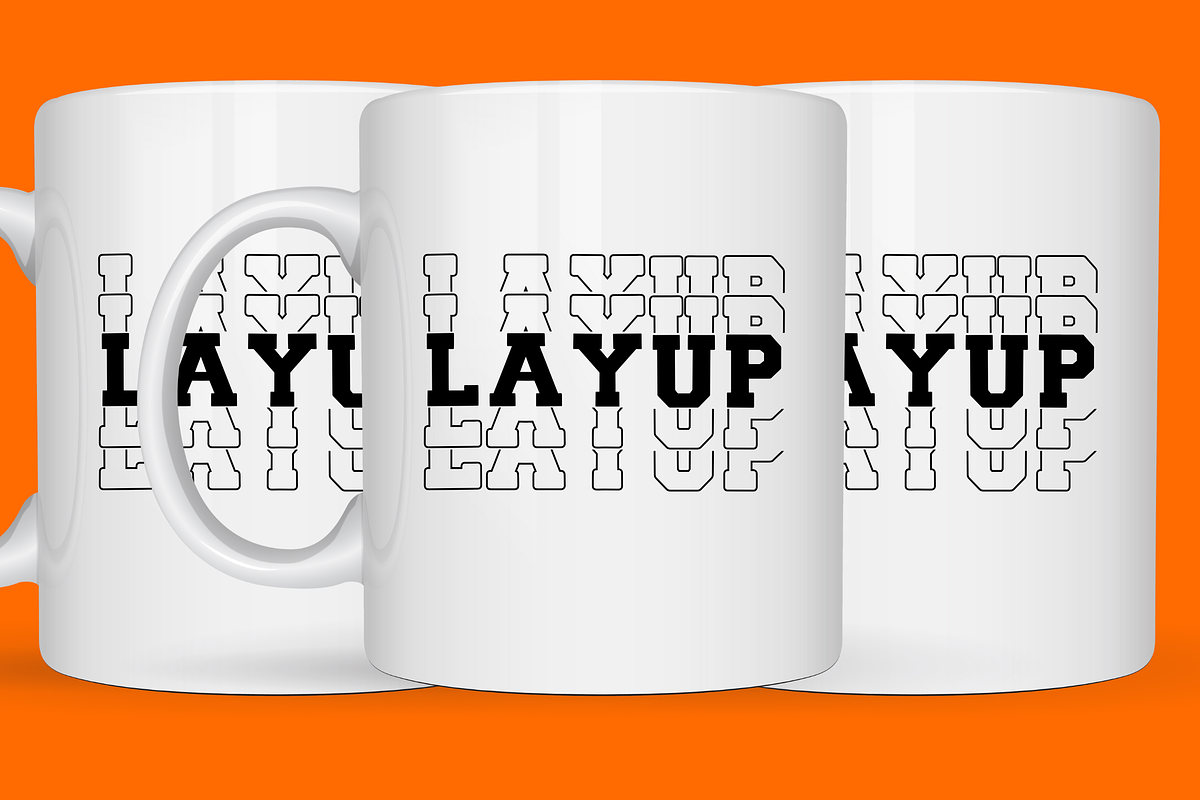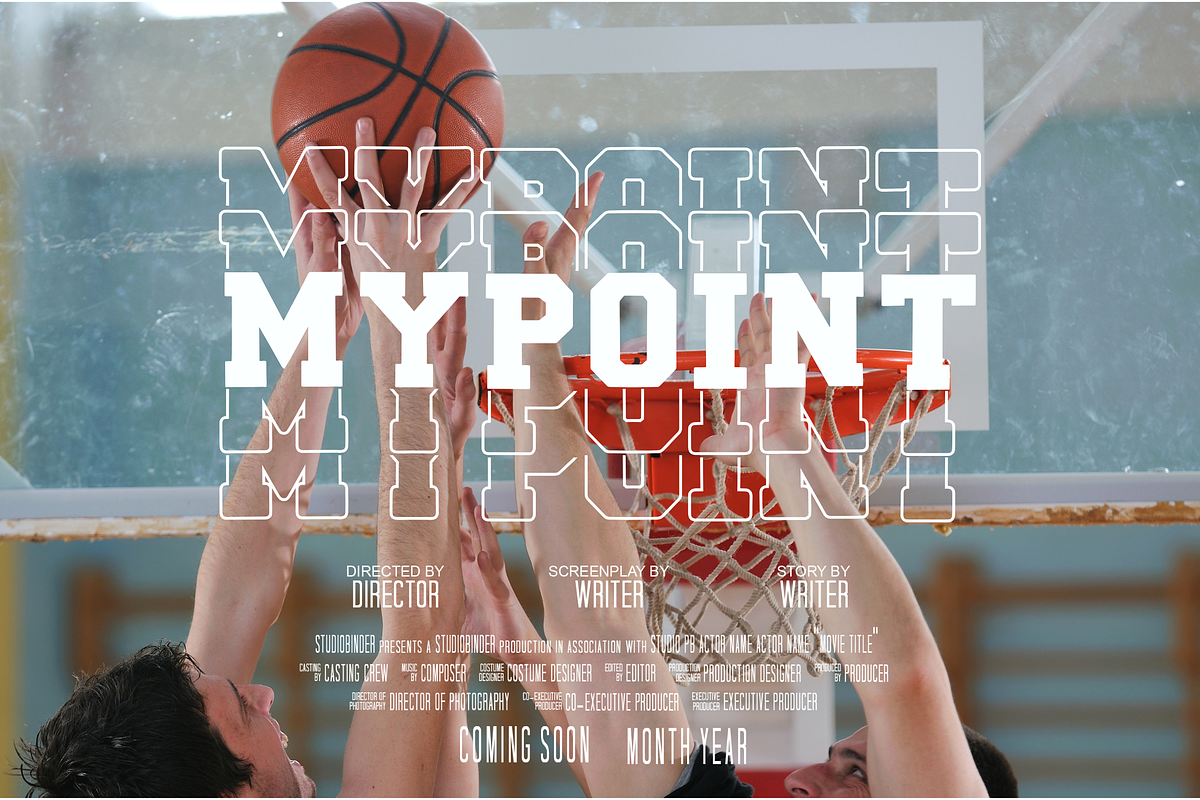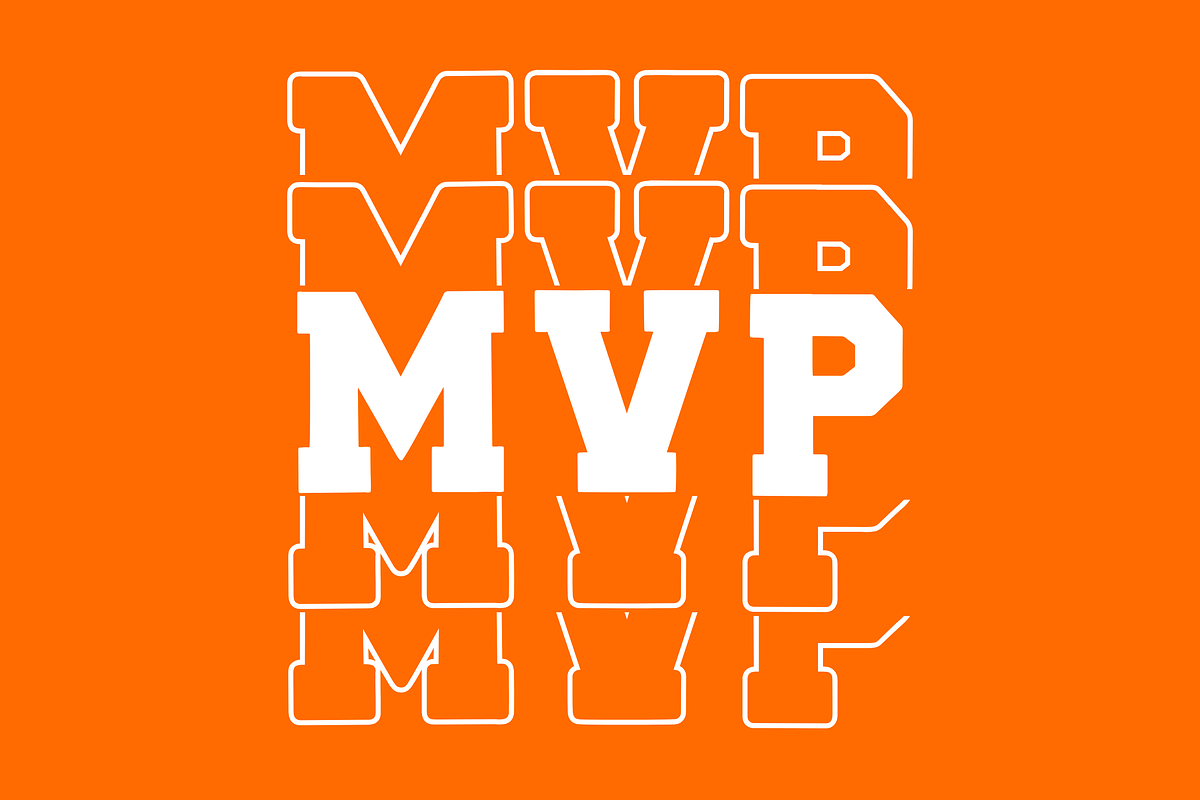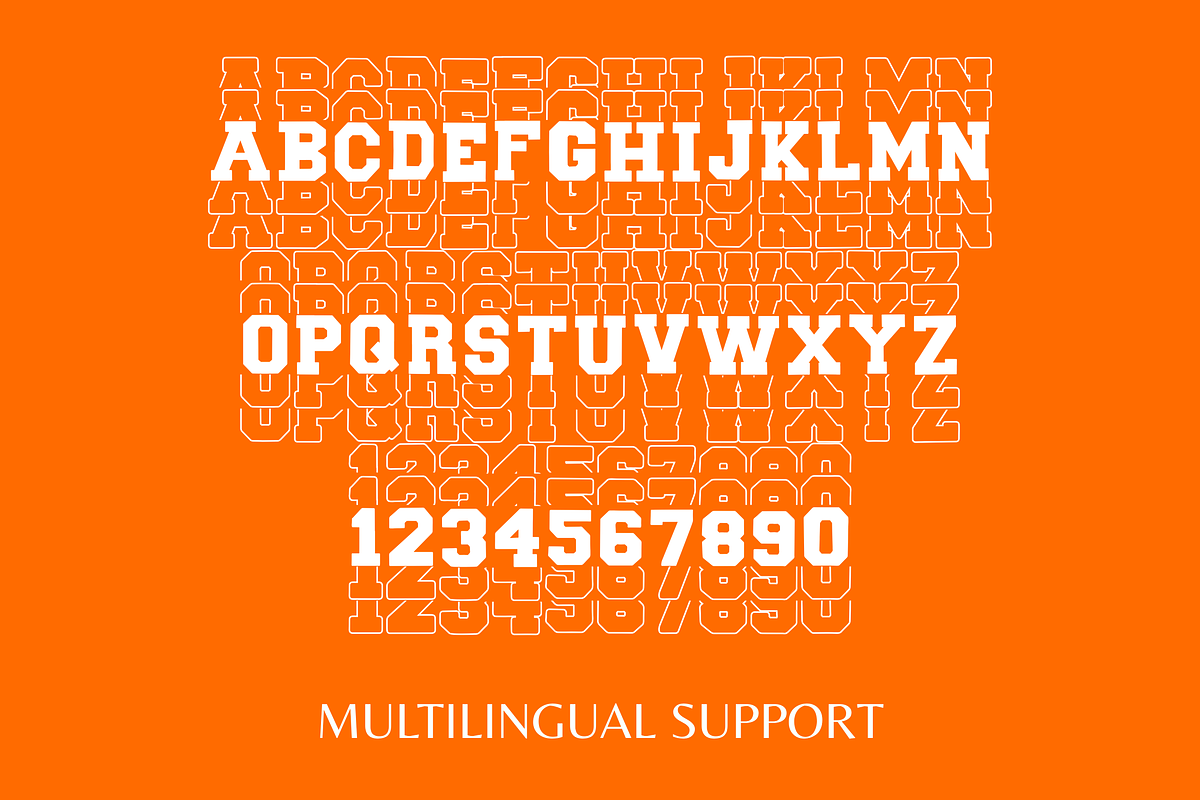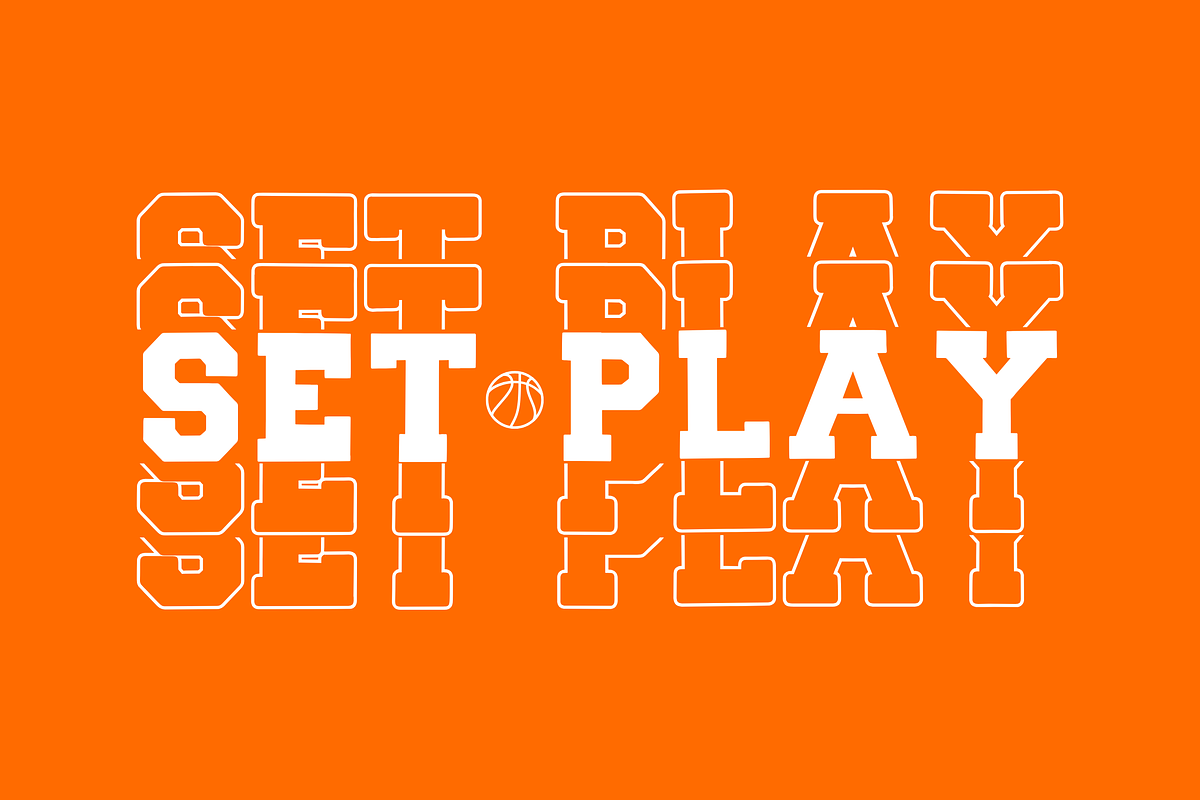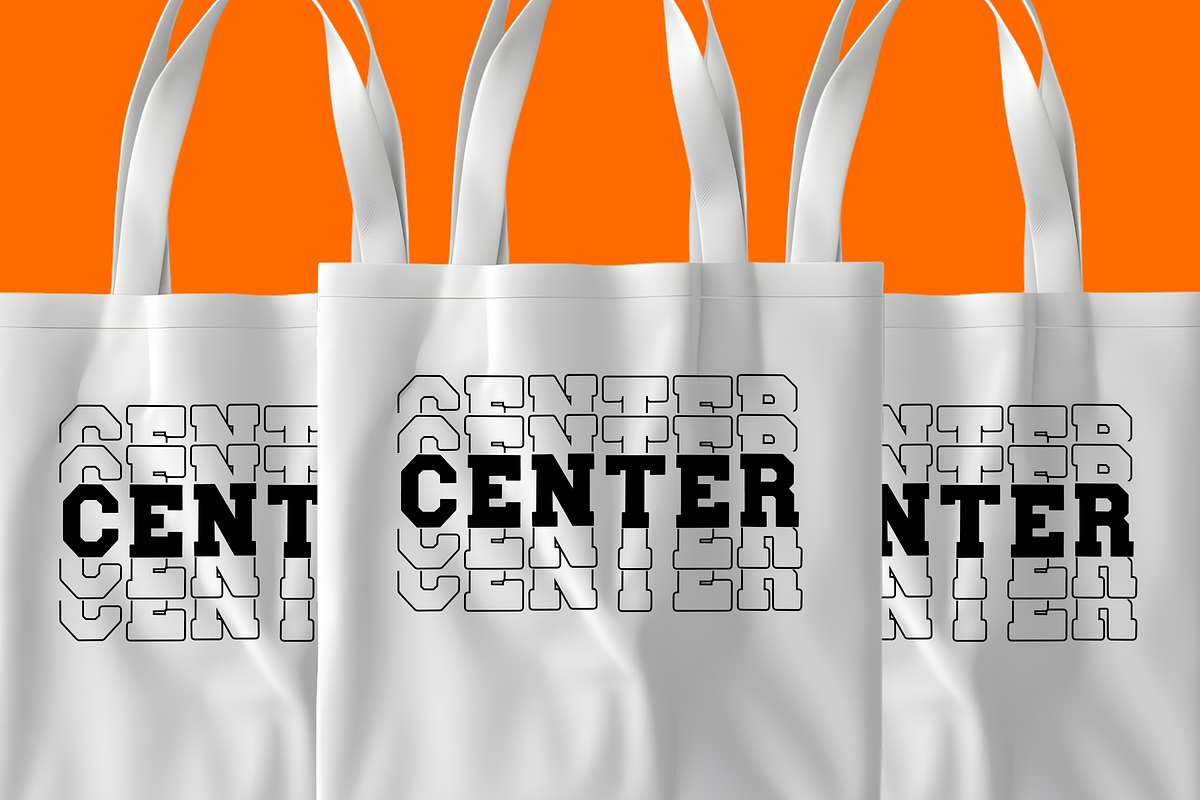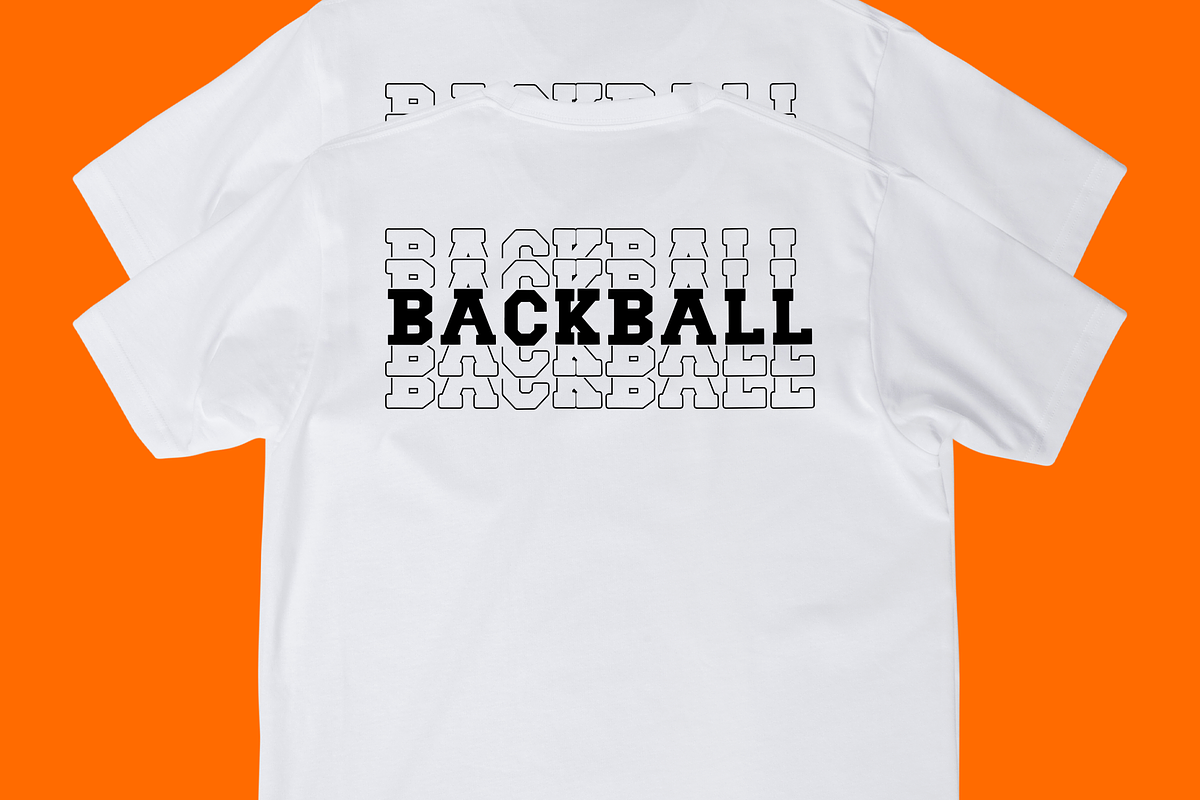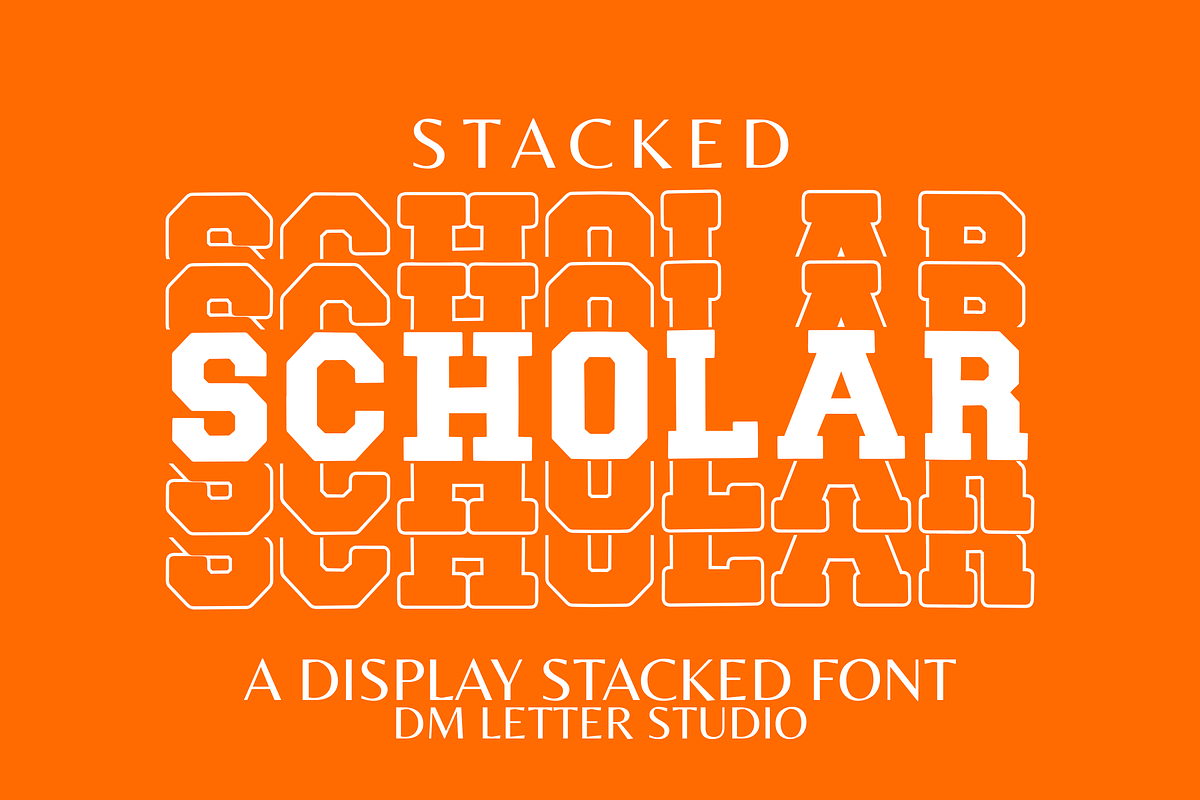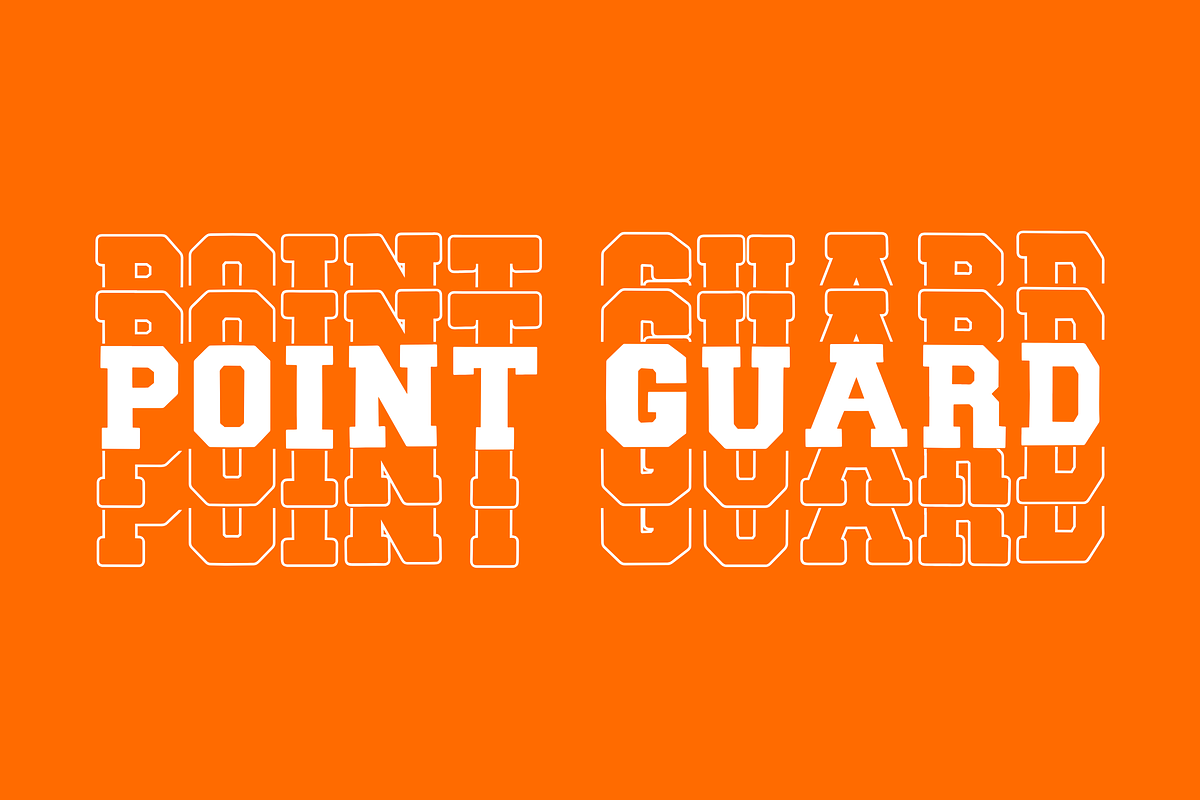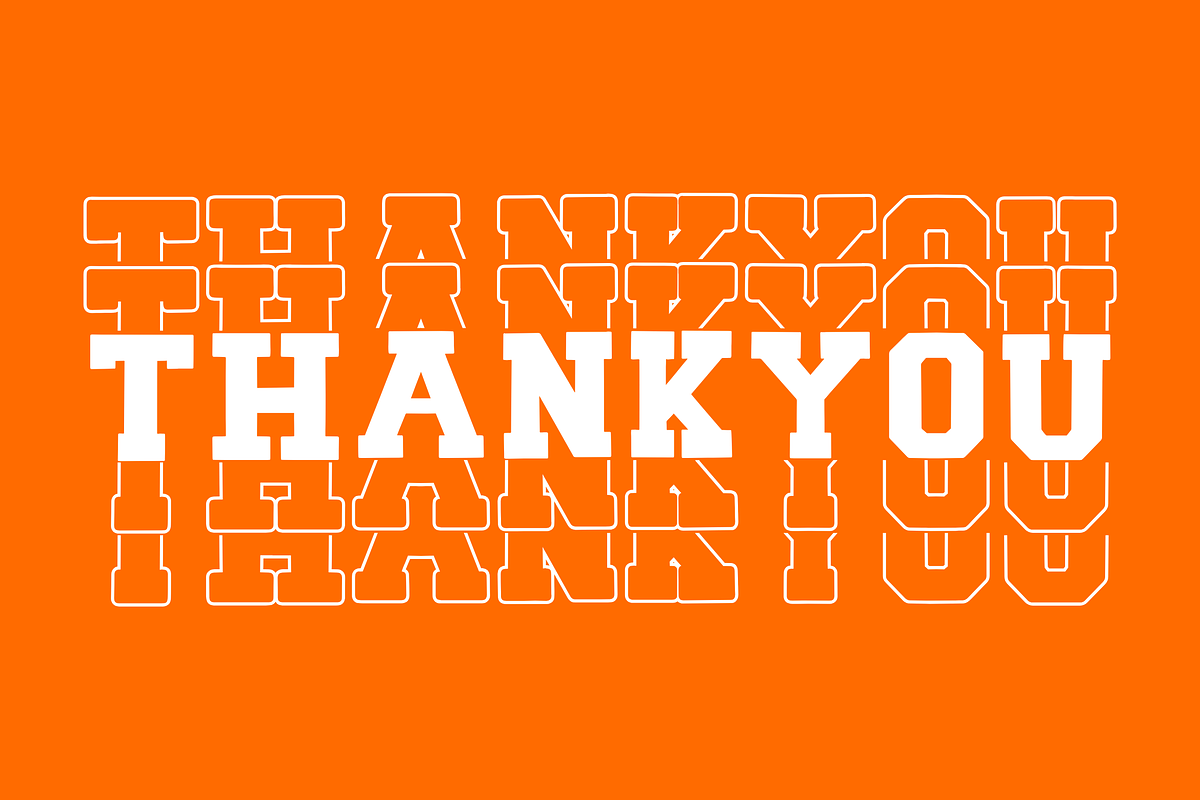
Scholar Stacked
Scholar Stacked – Bold Varsity Stacked Font for Sports & School Designs
Scholar Stacked is a bold and structured stacked varsity font that brings school pride, sports intensity, and classic collegiate style into a fresh typographic format. With tall all-caps letters stacked in a vertical style, this font gives your designs a powerful, athletic feel that stands out. Whether you're designing for school teams, college merch, graduation parties, or sportswear branding, Scholar Stacked brings the energy of varsity lettering with a twist.
This display font is designed specifically for projects that need to look strong, classic, and fun at the same time. The stacked varsity font structure sets it apart from typical horizontal fonts, allowing you to create titles, logos, or poster designs that feel bold and new—yet timeless. It’s the kind of typeface that turns heads on a team hoodie, pep rally banner, or YouTube gaming thumbnail.
The font’s clean and uniform structure ensures that every character aligns perfectly, giving your composition a balanced look even with the stacked format. Whether you're branding a fictional high school, creating a retro collegiate tee, or putting together a motivational sports poster, this typeface adds bold presence and professional edge.
Bold varsity block design with unique stacked lettering
Ideal for school, athletic, graduation, or college-themed graphics
All-caps format for maximum visual impact
Includes numerals, punctuation, and multilingual support